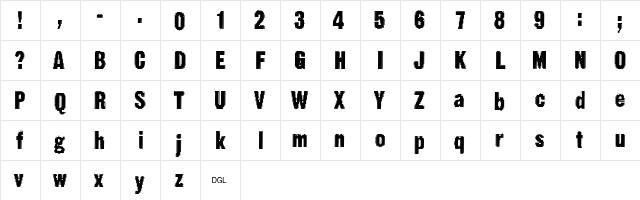
Static Age Itali
| Foundry | Digital Graphic Labs |
| Designer | Digital Graphic Labs |
Design Context for Static Age Typeface
Static Age is a composed and adaptable typeface that performs quietly and consistently across a wide range of design contexts.